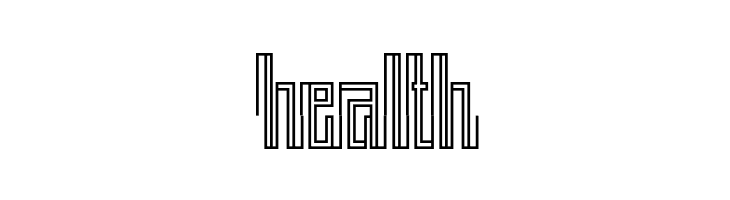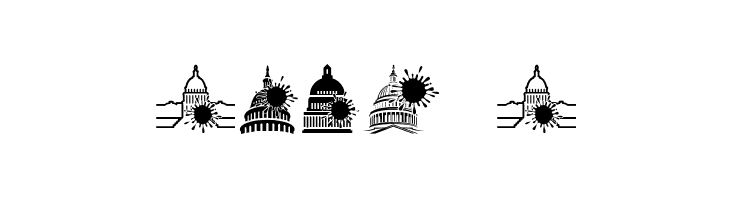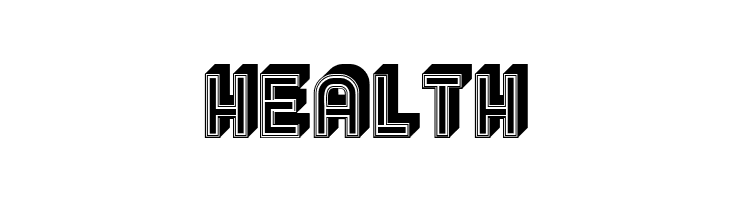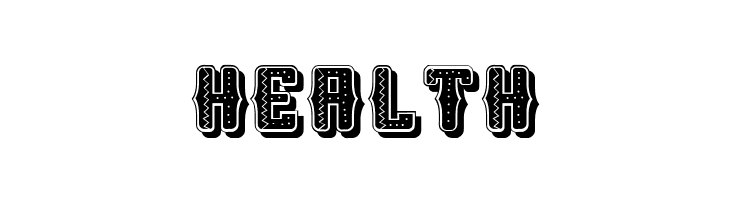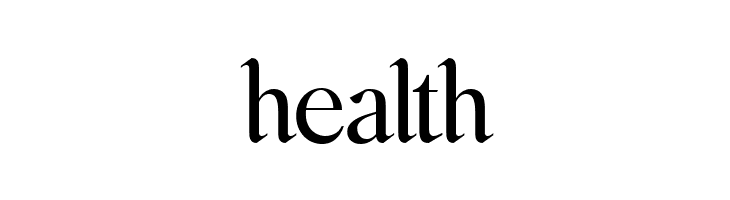
A geometric, maze-like font with bold, intersecting lines and a modern, architectural style.
A decorative icon set featuring architectural illustrations.
A bold, three-dimensional font with geometric and industrial influences.
A bold, decorative font with intricate patterns and a festive, cultural flair.
A modern, geometric font with elongated, rounded characters.
A fluid, handwritten cursive font with elegant, slender strokes.
A classic serif font with elegant lines and high contrast, perfect for sophisticated designs.
A decorative and bold font with intricate, cultural-inspired details.
A bold, geometric font with Middle Eastern architectural influences.
A geometric, condensed font with uniform stroke widths and a modern, architectural style.